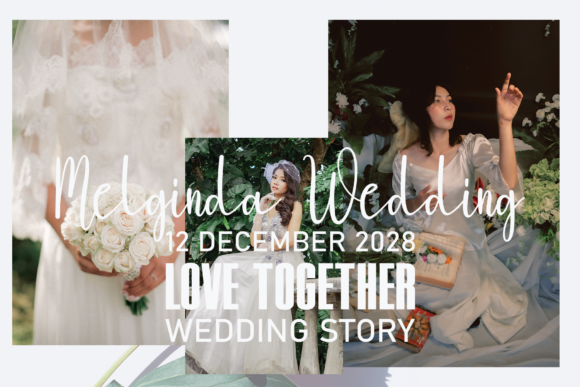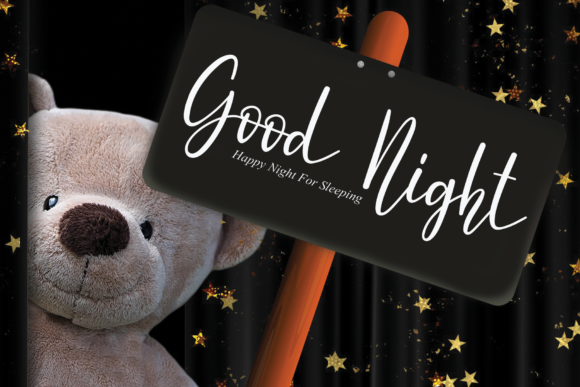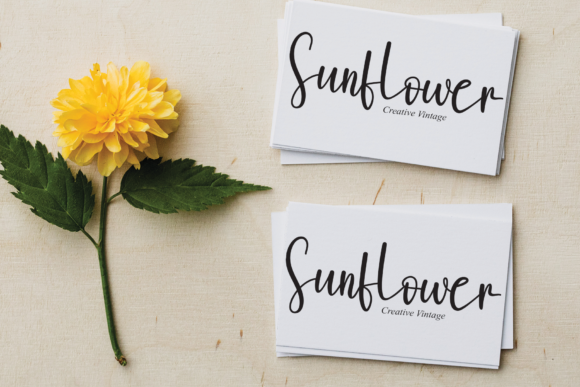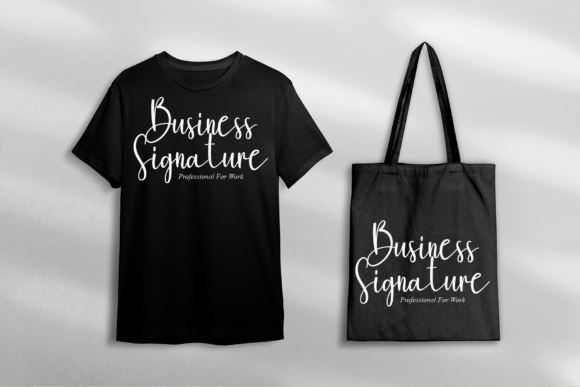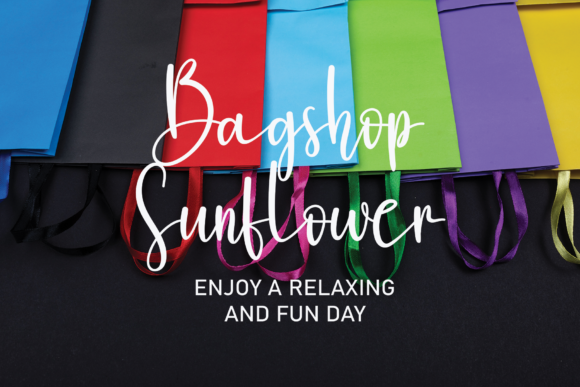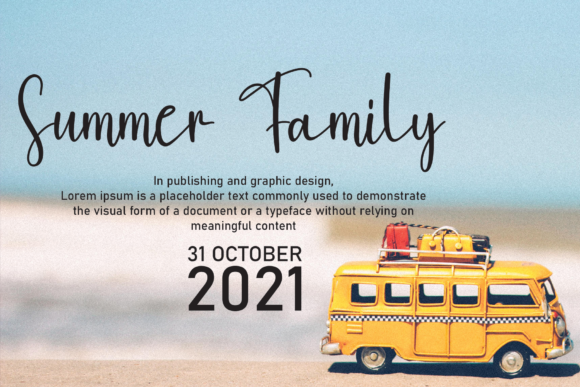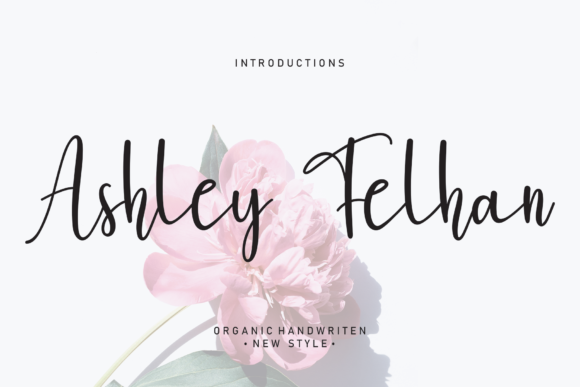
The Magical World of Ashley Felhan Font
I still remember the time I was working on a whimsical branding project for a children’s play area. I had all the design elements in place – the colors, the illustrations, and the layout – but something was missing. The font I was using just didn’t have that extra oomph to make it truly special. That’s when I stumbled upon the Ashley Felhan font, and it was love at first sight! ✨
This lovely script font features charming, playful characters that seem to dance along the baseline. It’s perfect for adding a touch of magic to your creative projects. In this article, I’ll share my honest review of the Ashley Felhan font, provide a practical guide on how to use it, and explore similar fonts that you might enjoy.
• ✨ Playful and charming: The Ashley Felhan font has a unique, hand-drawn feel that’s perfect for creative projects.
• ✅ Ease of use: This font is incredibly easy to read and works well for both headings and body text.
• 💃 Dance-like movement: The way the characters seem to dance along the baseline adds a touch of whimsy to any design.
While the Ashley Felhan font is amazing, there are a few things to keep in mind: 🤔
• ⚠️ Limited use in formal contexts: Due to its playful nature, this font might not be the best choice for formal documents or professional branding.
• ⚠️ Glyph limitations: Some users have reported that the font could benefit from more glyphs, especially for non-English languages.
The Ashley Felhan font was designed with inspiration from classic children’s books and playful street art. The designer aimed to create a font that would bring a sense of joy and whimsy to any project. While the exact design process is not publicly known, it’s clear that the font was crafted with love and attention to detail.
Q: Is the Ashley Felhan font suitable for body text?
A: While the Ashley Felhan font is easy to read, it’s best suited for headings and titles. For body text, consider using a clearer font.